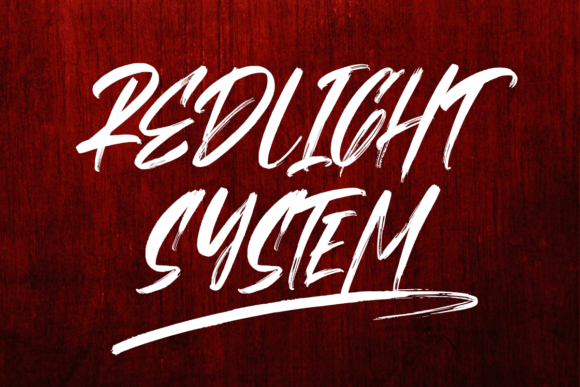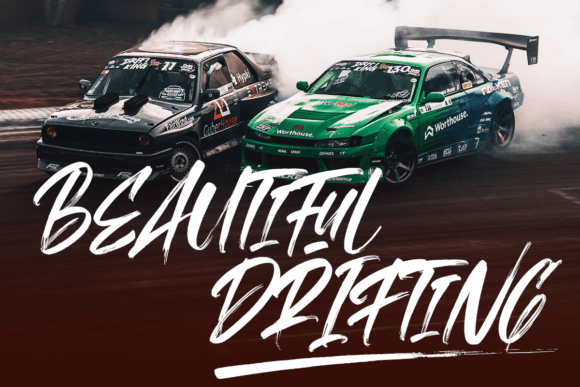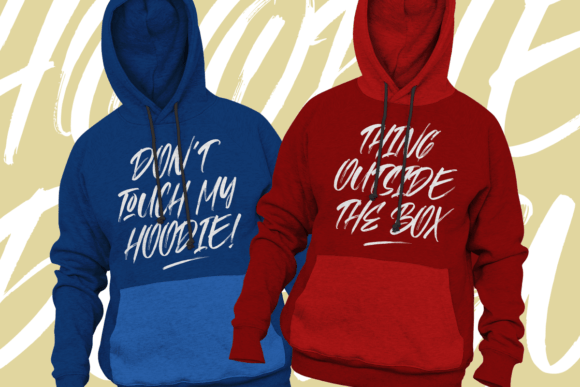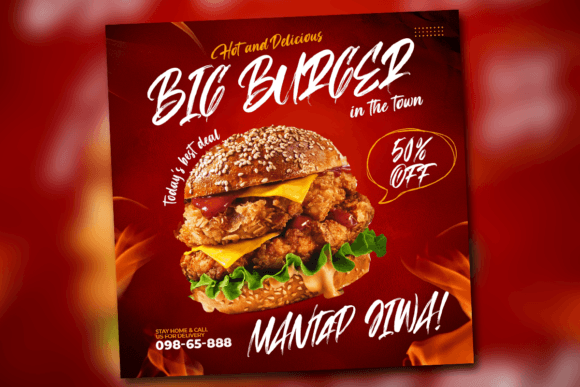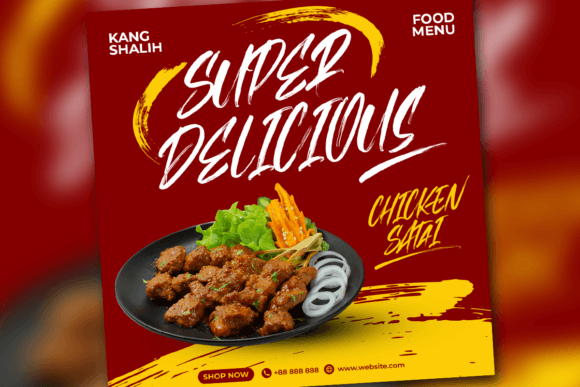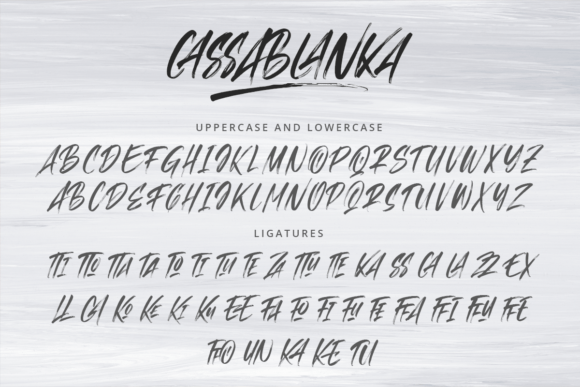
Cassablanca Font: Elevate Your Designs with a Touch of Urban Elegance
Are you on the hunt for a font that embodies the perfect blend of fun, beauty, and urban sophistication? Look no further than the Cassablanca Font. This stunning brush script font is designed to add a touch of elegance and style to your designs, making it ideal for a wide range of projects, from branding and logos to weddings and other creative endeavors.
What Makes Cassablanca Font So Special?
Cassablanca Font is more than just a pretty face. Its unique blend of playful and urban elements makes it a versatile font that can be used in a variety of contexts. Here are just a few reasons why designers and crafters are falling in love with this beautiful font:
- Fun and Beautiful: Cassablanca Font is a true showstopper. Its bold, expressive strokes and flowing curves make it a joy to use in any design project.
- Urban Chic: With its edgy, modern vibe, Cassablanca Font is perfect for designers who want to add a touch of urban sophistication to their work.
- PUA Encoded: One of the best things about Cassablanca Font is that it’s PUA (Private Use Area) encoded. This means that you can access all of the amazing glyphs and ligatures with ease, giving you even more creative possibilities.
Whether you’re a professional designer or a crafty DIY enthusiast, Cassablanca Font is a great choice for any project that requires a touch of style and sophistication. Here are just a few ideas to get you started:
- Branding and Logos: Use Cassablanca Font to create a memorable logo or brand identity that will help your business stand out.
- Weddings and Events: Add a touch of elegance to your wedding invitations, programs, and other event materials with this beautiful font.
- Social Media Graphics: Use Cassablanca Font to create eye-catching social media graphics that will help you connect with your audience.
- Packaging and Product Design: Add a touch of urban chic to your product packaging with this versatile font.
Tips for Getting the Most Out of Cassablanca Font
To really make the most of Cassablanca Font, here are a few tips to keep in mind:
- Experiment with Different Sizes and Colors: Don’t be afraid to play around with different sizes and colors to find the perfect look for your design.
- Pair it with Other Fonts: Cassablanca Font pairs well with a variety of other fonts, so don’t be afraid to get creative and try out different combinations.
- Use it to Add Emphasis: Use Cassablanca Font to add emphasis to key words or phrases in your design, making it easier to draw attention to what matters most.
- Fun, beautiful, and urban brush script font
- Perfect for branding, logos, weddings, and other design projects
- Versatile design that’s perfect for a wide range of applications